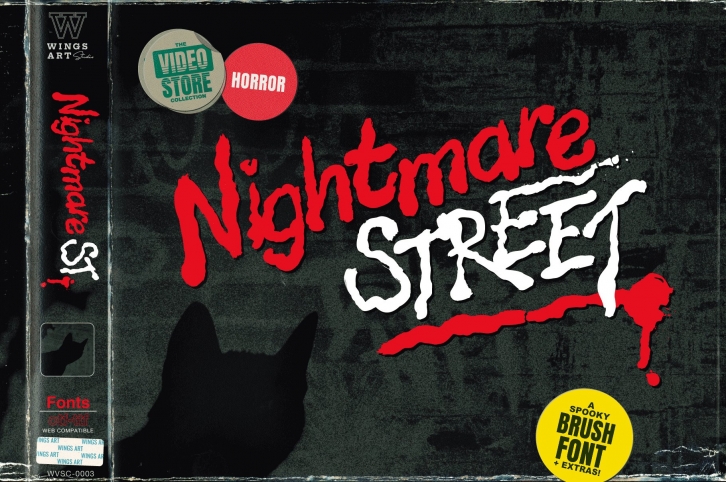
Nightmare Street is a trendy and unique font with an authentic style. It was designed by Wings Art Studio and it's a great choice for creative people who need such a font. It was released on October 8, 2020 and the file size is 21.86 MB. Nightmare Street will add an organic vibe to any design idea!